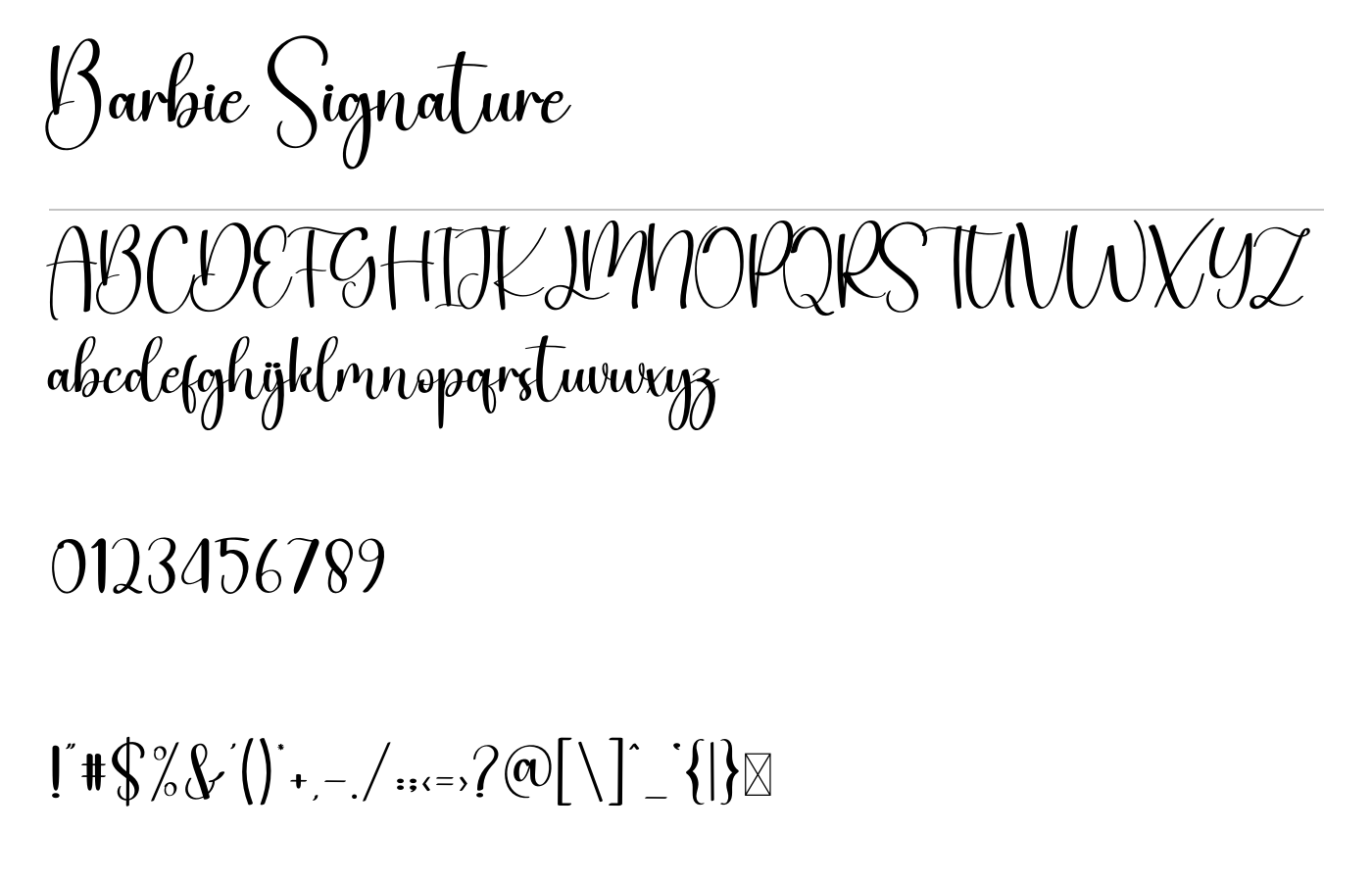
Barbie Signature is a delicate, handwritten script font featuring elegant, flowing strokes with a playful and feminine touch. Its tall, slender letterforms and graceful curves create a stylish and personal feel, making it ideal for branding, invitations, and any design seeking a chic, signature-like appearance. This font shines in contexts where sophistication and a hint of whimsy are desired, such as fashion projects or luxury packaging.
Barbie Signature Font